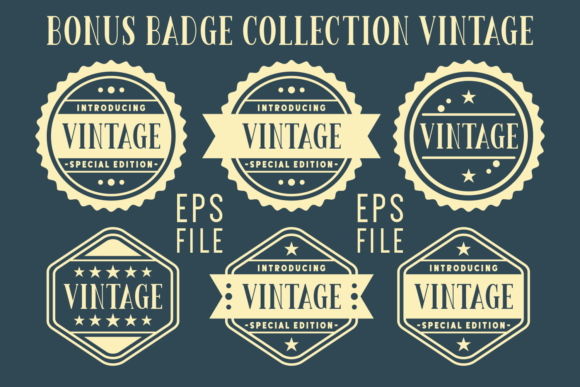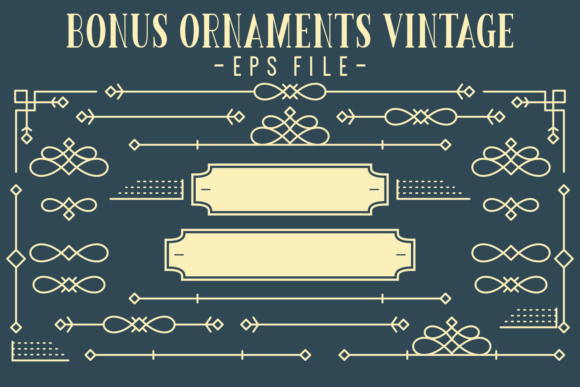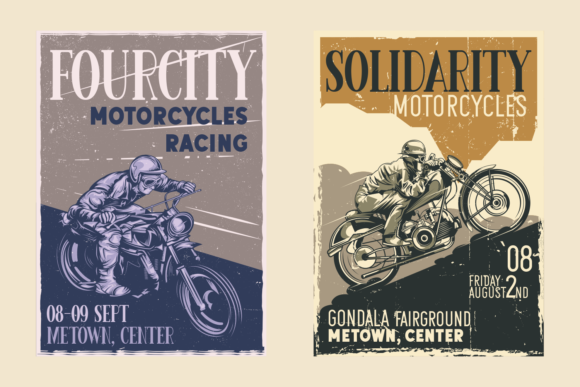
Introduction to Montanise Font
Have you ever found yourself staring at a blank canvas, struggling to bring your creative vision to life? The blank page can be intimidating, but sometimes all it takes is the right tool to spark inspiration. For designers, a high-quality font can be the difference between a mediocre project and a masterpiece.
Enter the Montanise Font, a cool, tall, and assertive serif font that’s sure to elevate any creation. With its sleek design and transparent background, this font is a design resource that’s both versatile and sophisticated. Whether you’re working on a free download or a paid project, the Montanise Font is an incredible asset to your library. Its high-quality design makes it the perfect choice for any creative project, from logos to typography-heavy designs.
Key Features of Montanise Font
- Unique, hand-drawn design with a touch of elegance and sophistication, ideal for creative projects and high-quality publications.
- Designed to be versatile and adaptable, suitable for a wide range of creative projects, from branding and advertising to editorial and publishing.
Honest Review: Montanise Font
As a designer, I’m always on the lookout for high-quality design resources to elevate my creative projects. Recently, I had the opportunity to work with the Montanise Font, and I must say it’s been a game-changer.
- ✨ Unique and elegant design style that adds a touch of sophistication to any project
- ✨ Excellent legibility, making it perfect for both body text and headings
- ⚠️ Some users may find the font too ornate or distracting, depending on the project context
Overall, I’m thoroughly impressed with the Montanise Font. Its high quality and unique design style make it a valuable addition to any design resource library. While it may have some limitations, it’s definitely worth considering for your next creative project. Plus, it’s available for free download, which is a major plus in my book!
Tips for Getting the Most Out of Montanise Font
When using Montanise Font, consider using a transparent background to give your designs a clean and modern look. You can also experiment with different font sizes and styles to create a unique and creative project.
Common Use Cases for Montanise Font
The Montanise Font is commonly used in design projects that require a high-quality, elegant font. Some common use cases include creating wedding invitations, business cards, and branding materials.